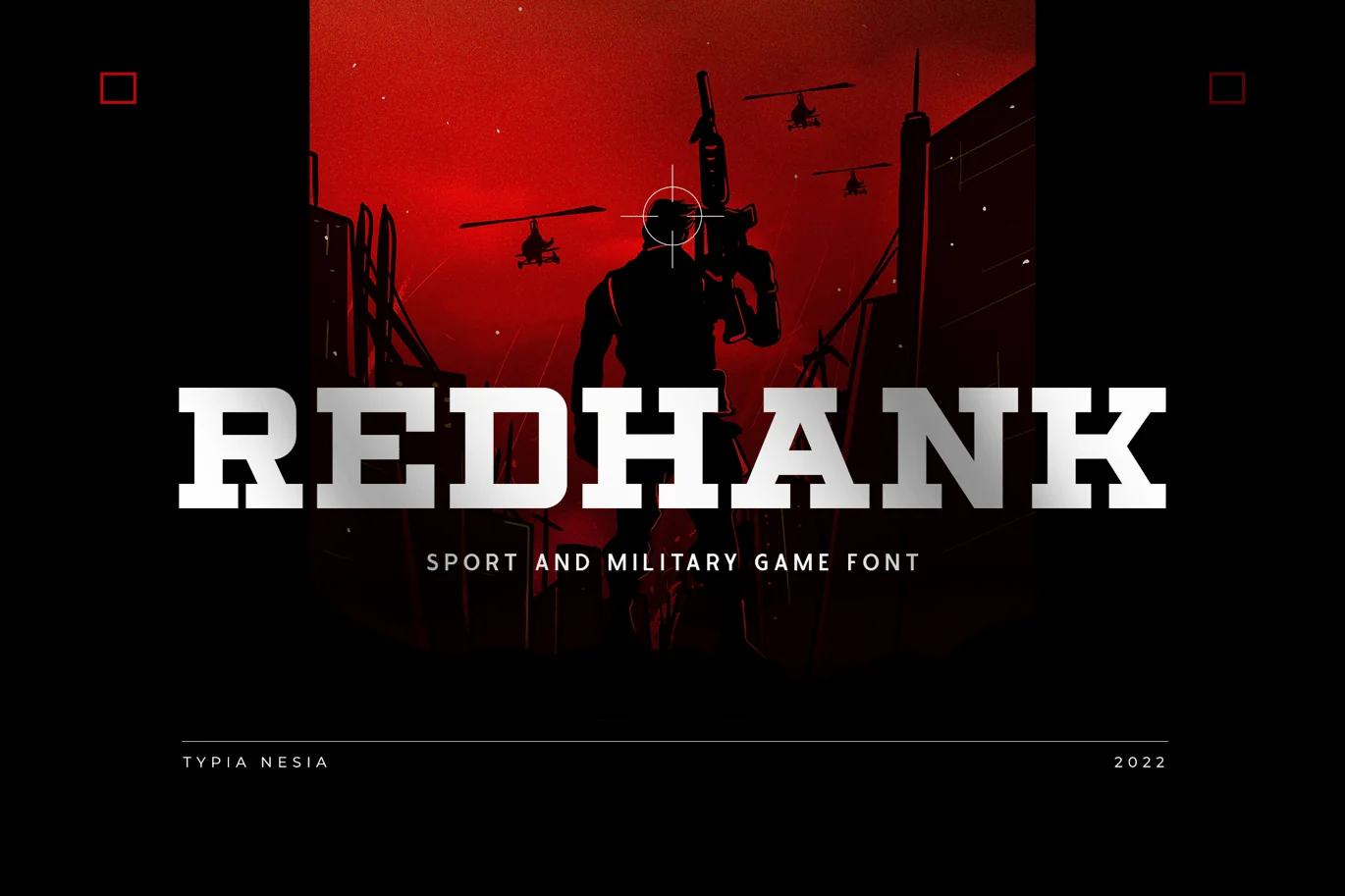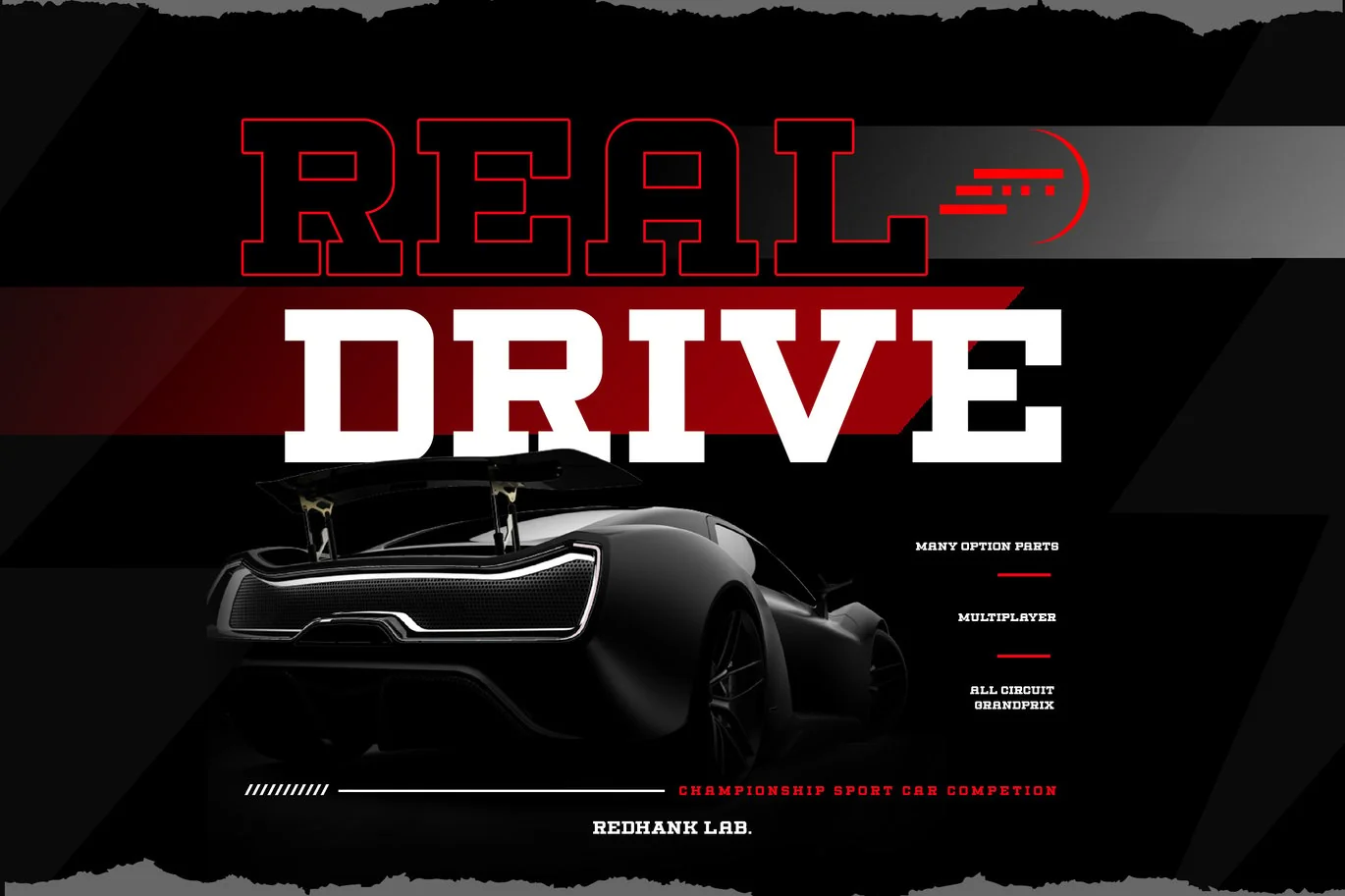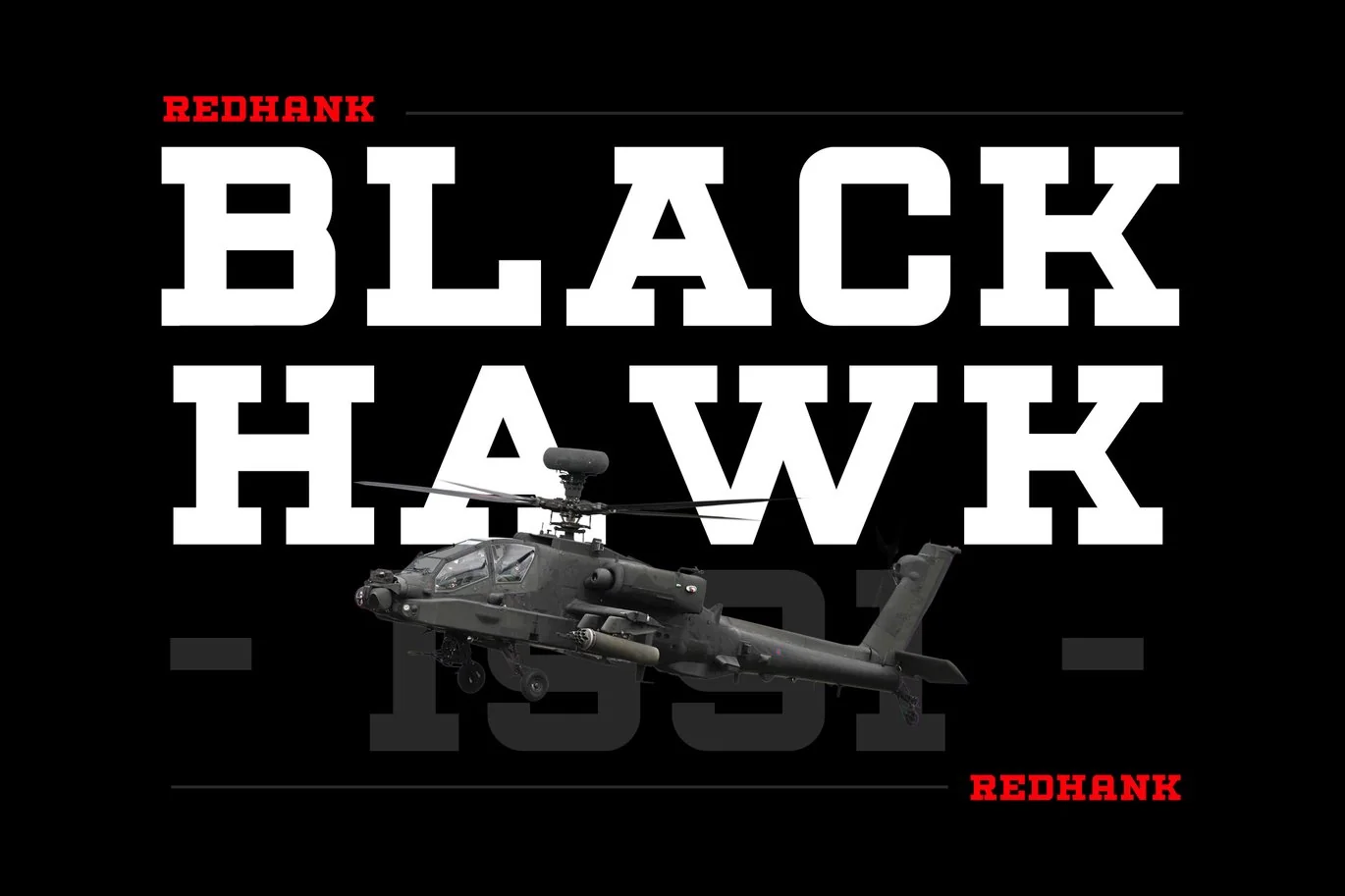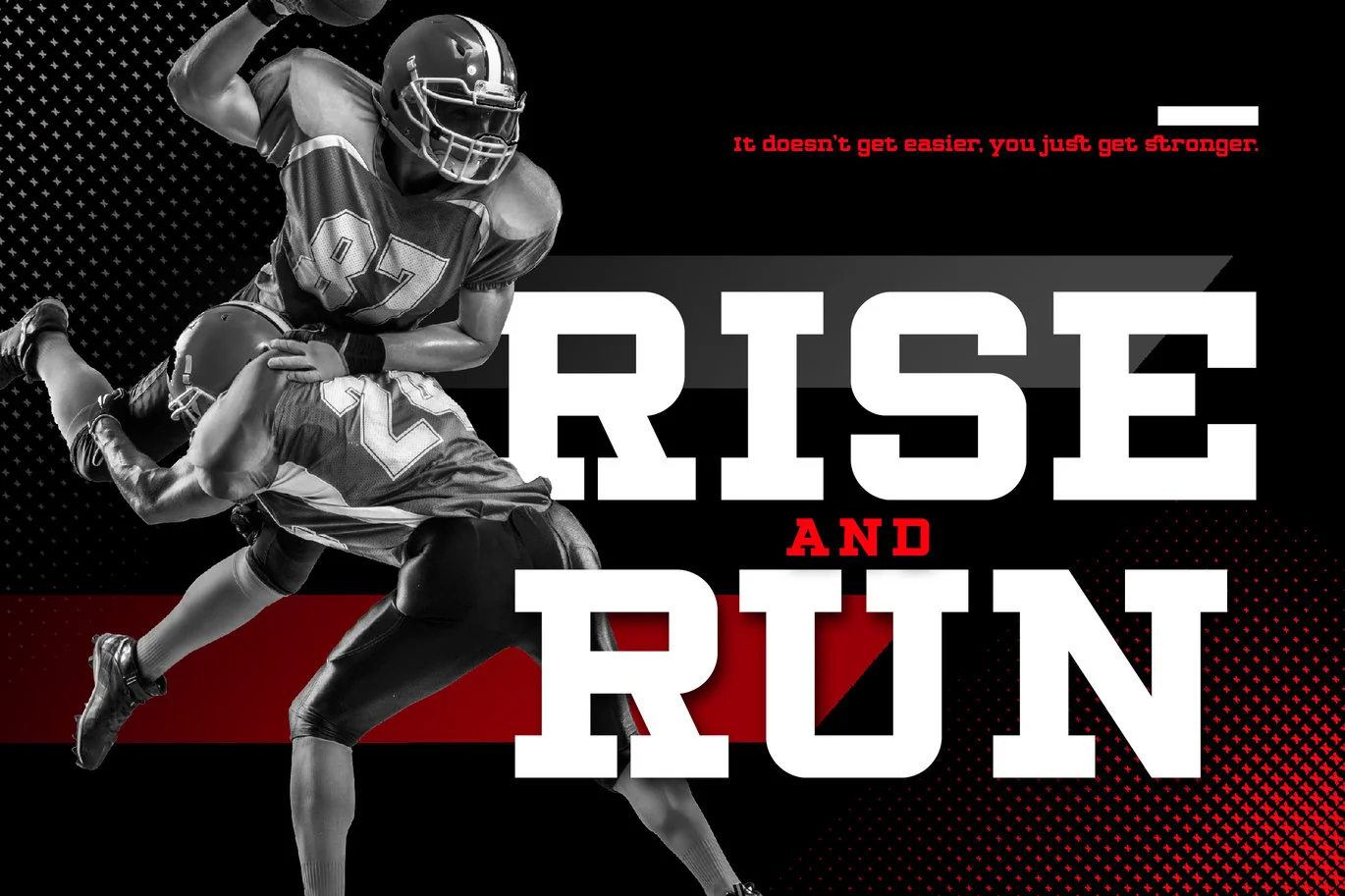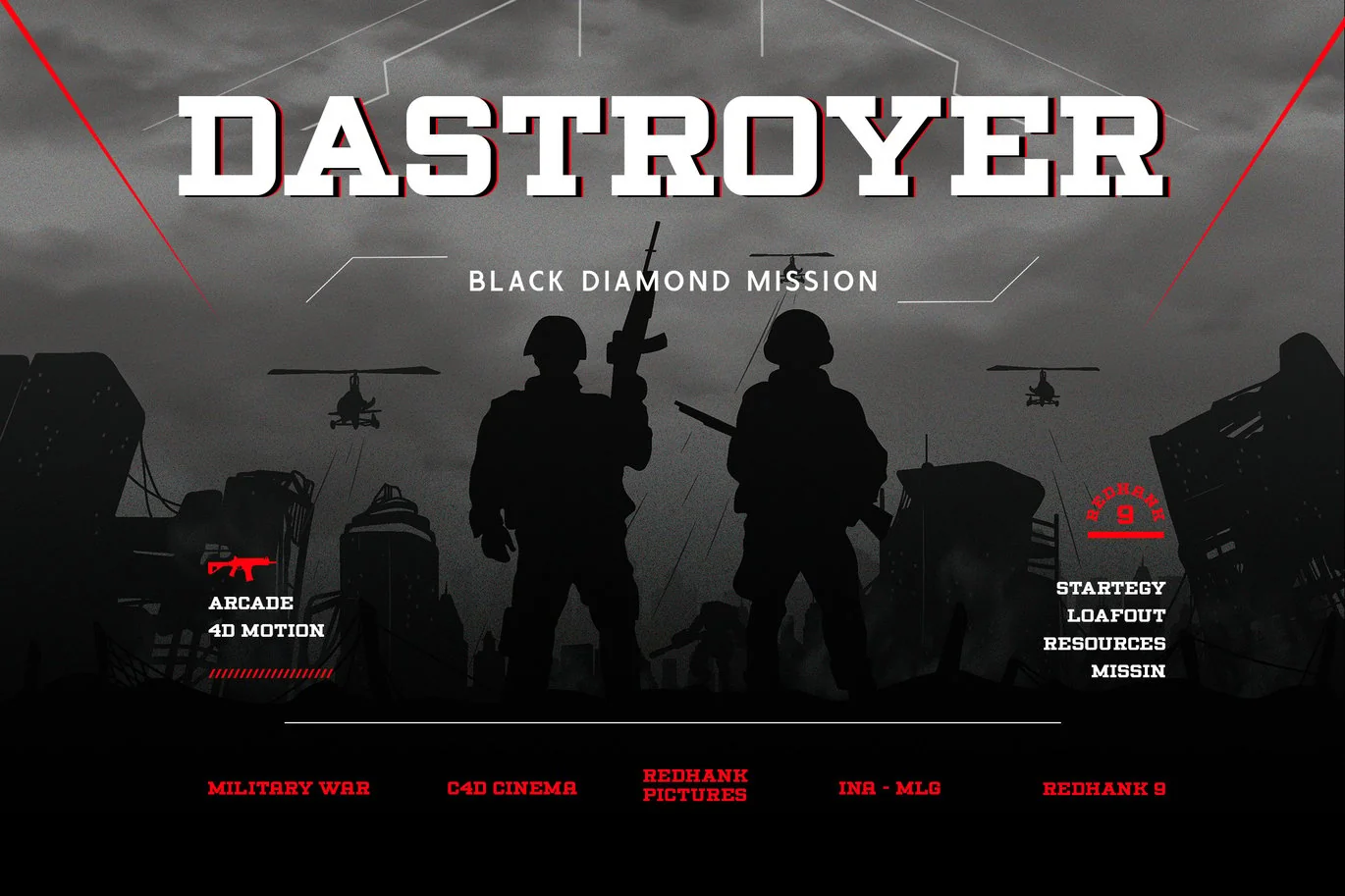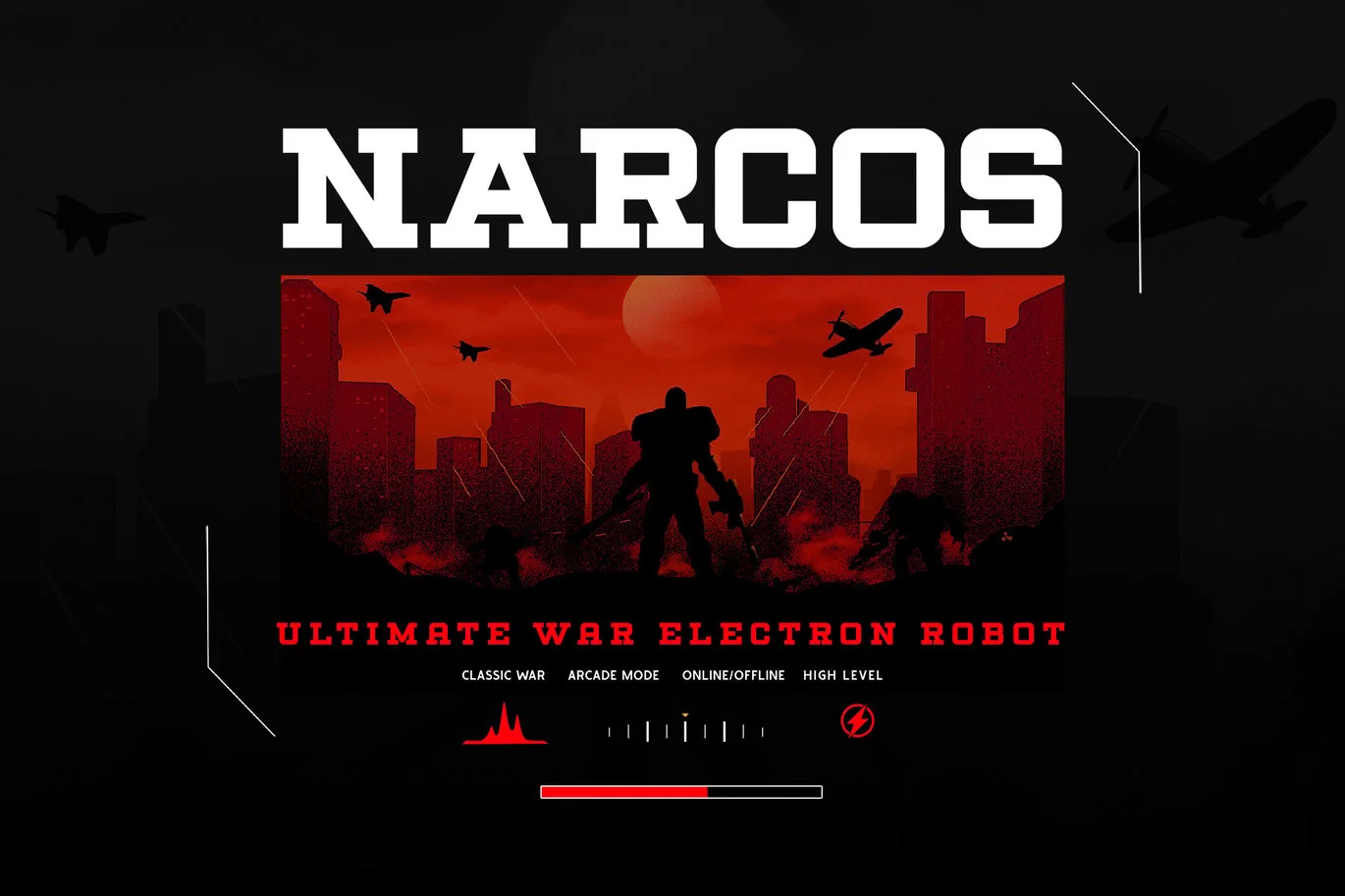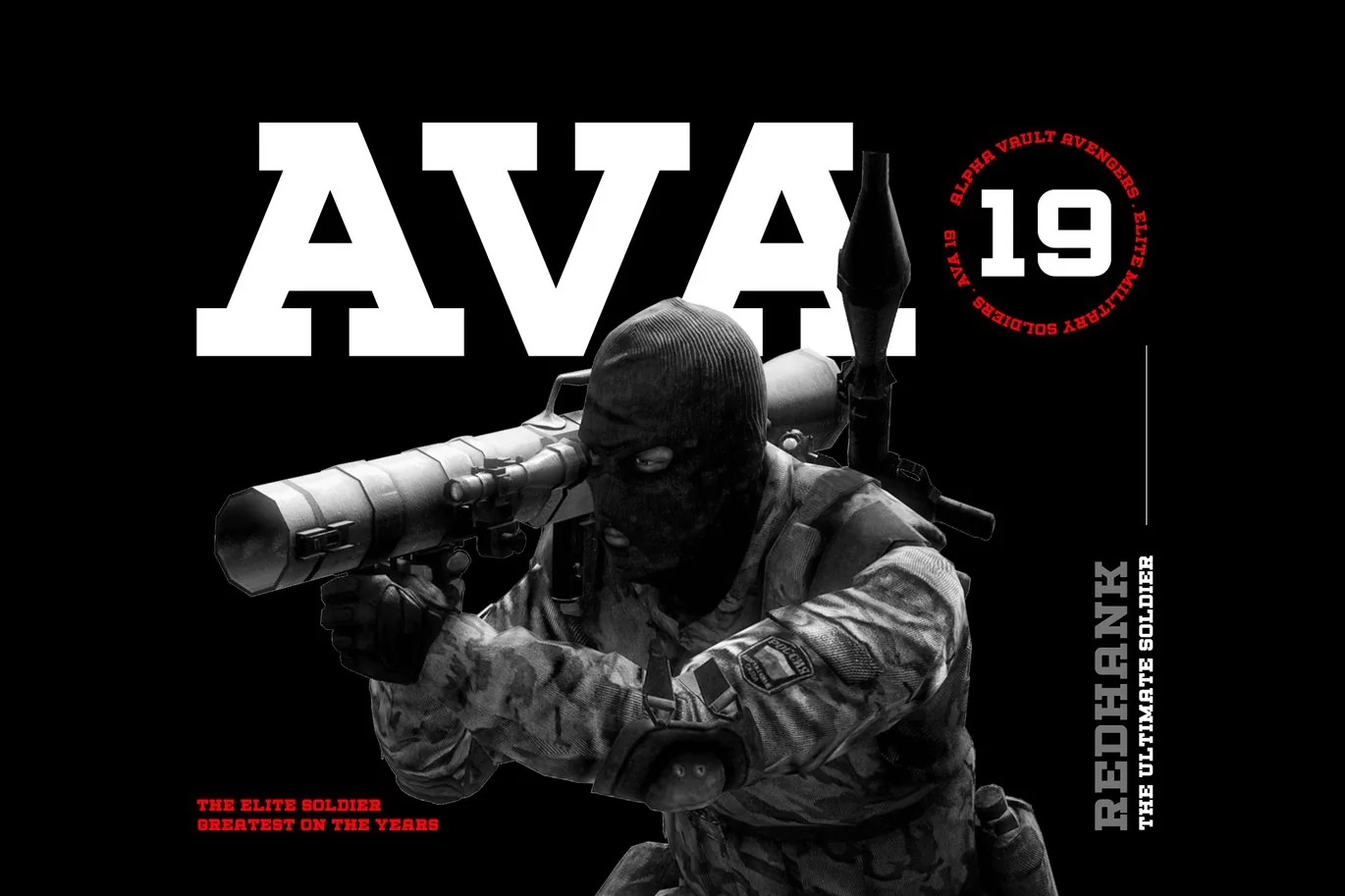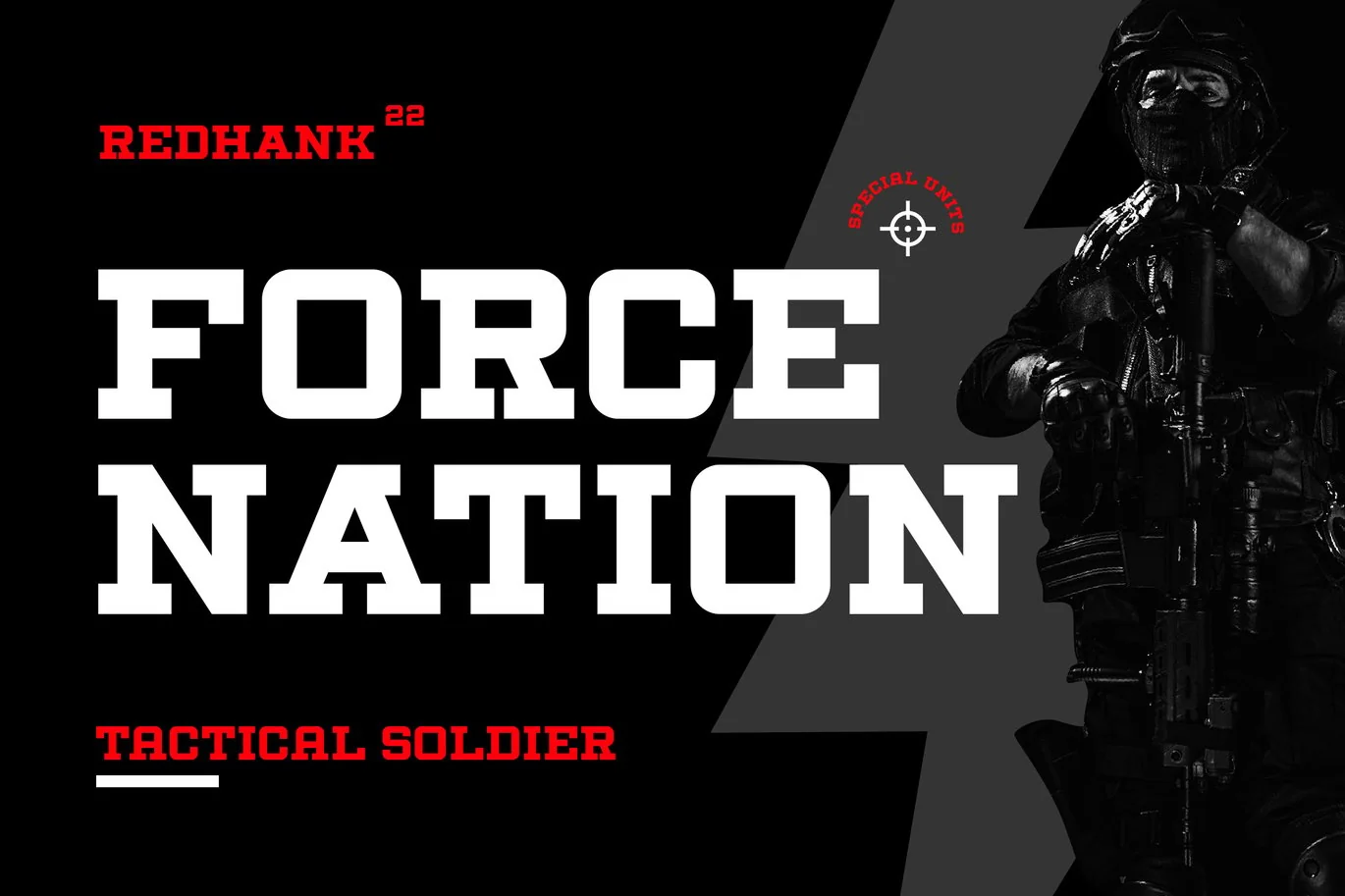
Redhank – Modern Expanded Slab Serif – Game Font
Redhank – Bold / Black Modern Expanded Slab Serif – Military and Racing Sport Game Display Font
Redhank Slab Serif Font is perfect for your up coming projects. Such as logo branding, editorial design, stationery design, sport design, 80s retro design, esport game industry, sport racing, super car brand, music poster, blog design, modern advertising design, card invitation, art quote, home decor, book/cover title, special events and any more.